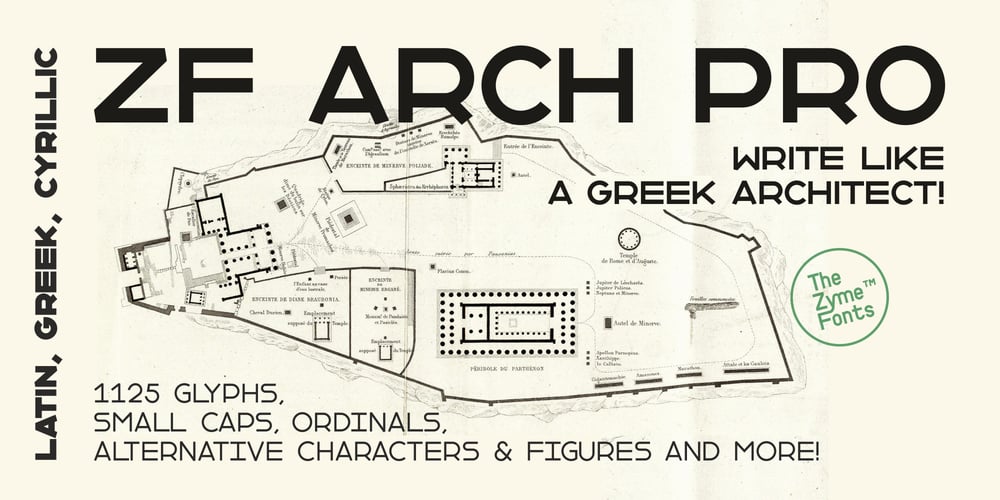
ZF Arch Pro Font Family was designed by Babis Touglis and published by The Zyme. ZF Arch Pro contains 11 styles and family package options. Arch is for Architecture! This font family is inspired by the Greek Architects of the past decades who themselves wrote on their drawings -by hand- usually using a rapidograph!Most Greek architects wrote the titles of their projects in this style and this was what determined the style of this particular font as a consequence of the medium they used (rapidograph) and other tools such as the ruler to hold the alignments.For this reason the font has been designed with an uppercase version (all caps). The font is suitable for display use, such as titles, posters, covers, logos and especially for applications related to cultural events.